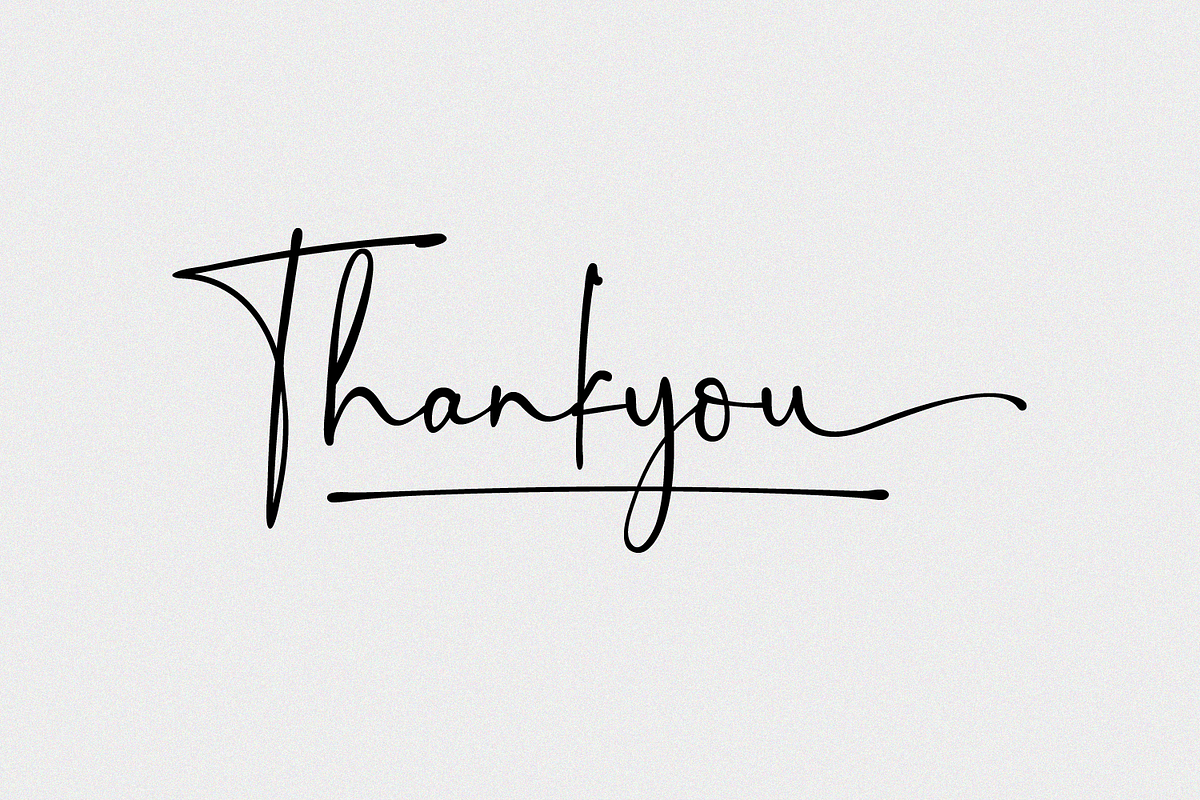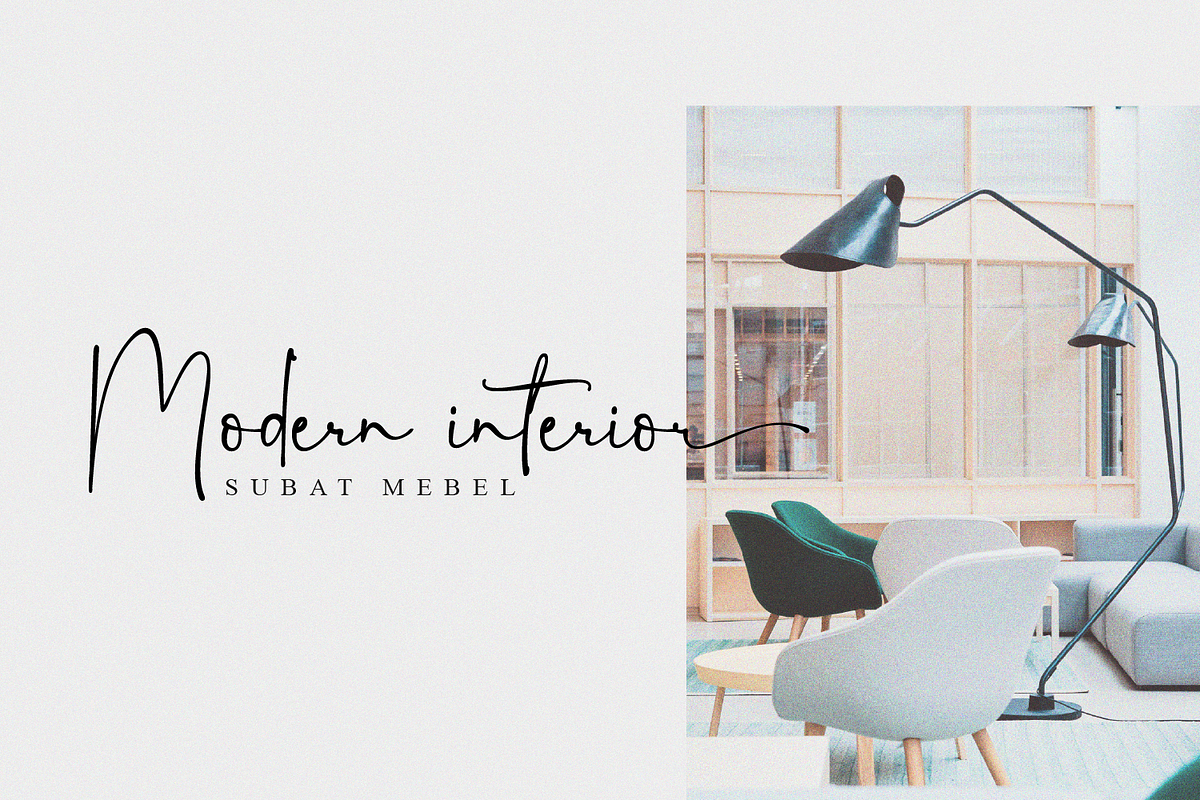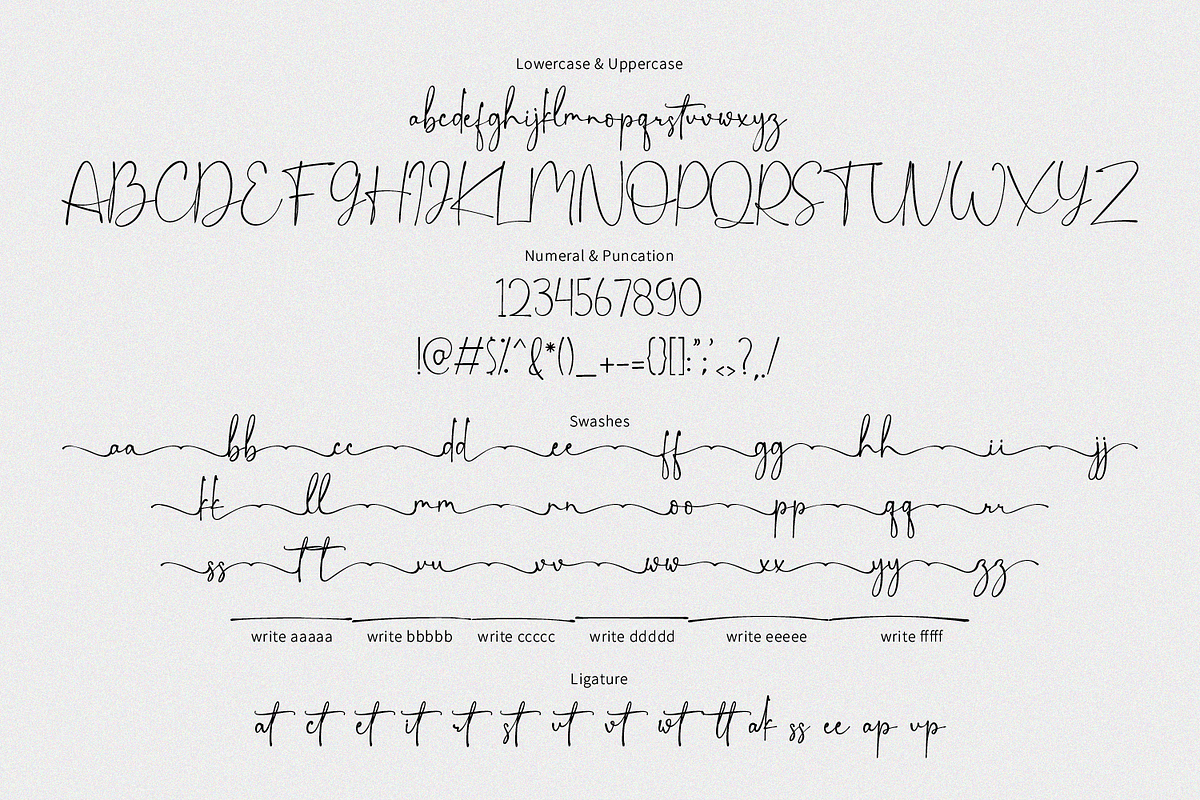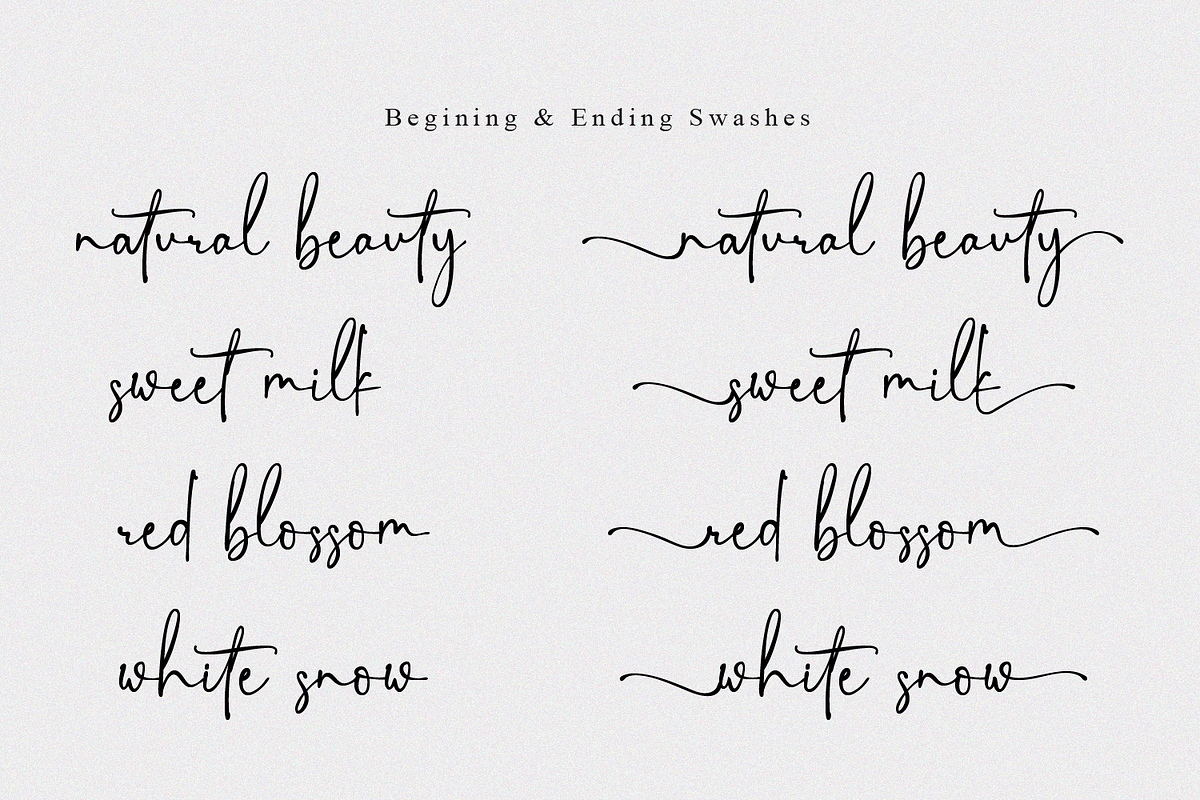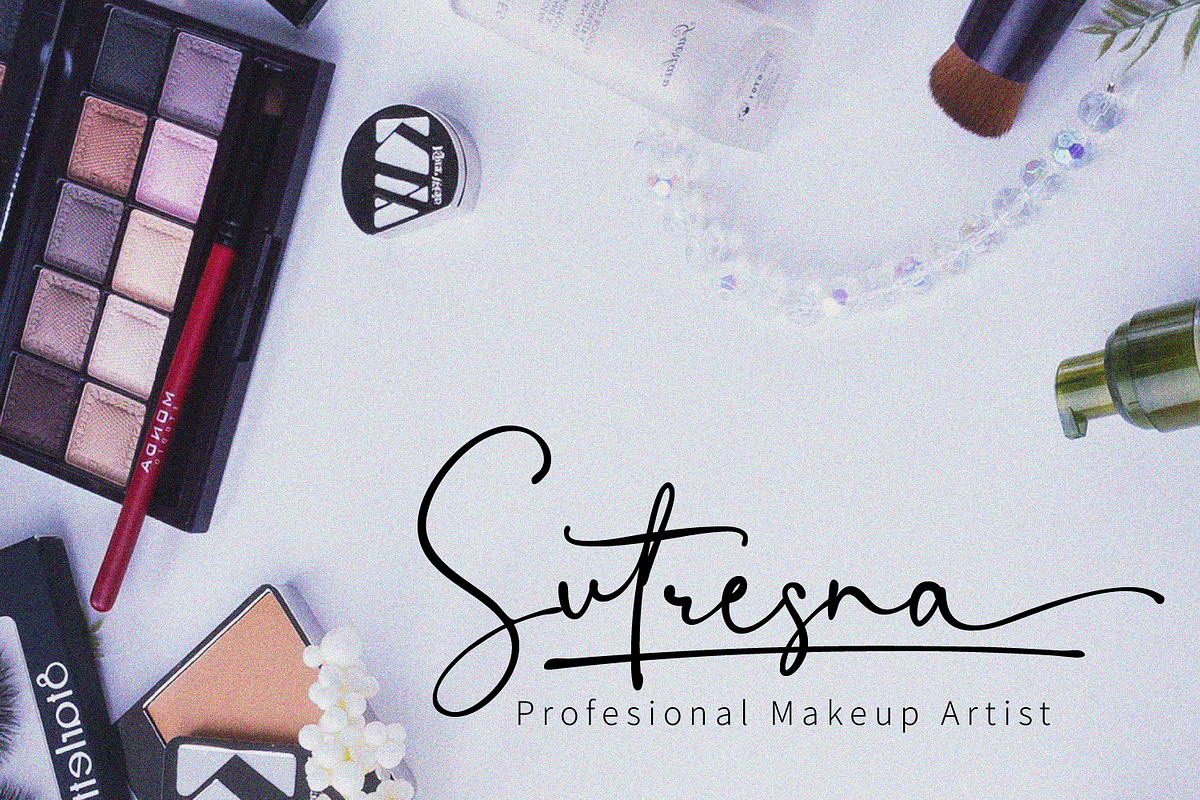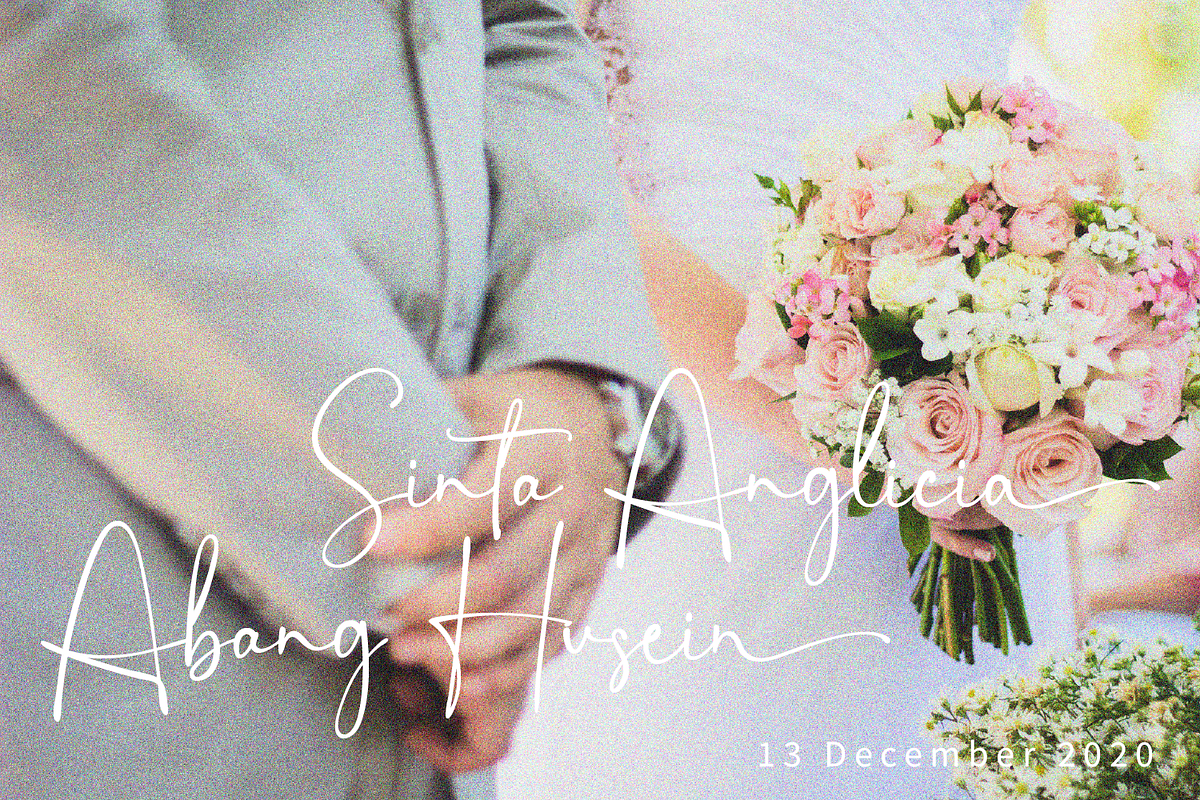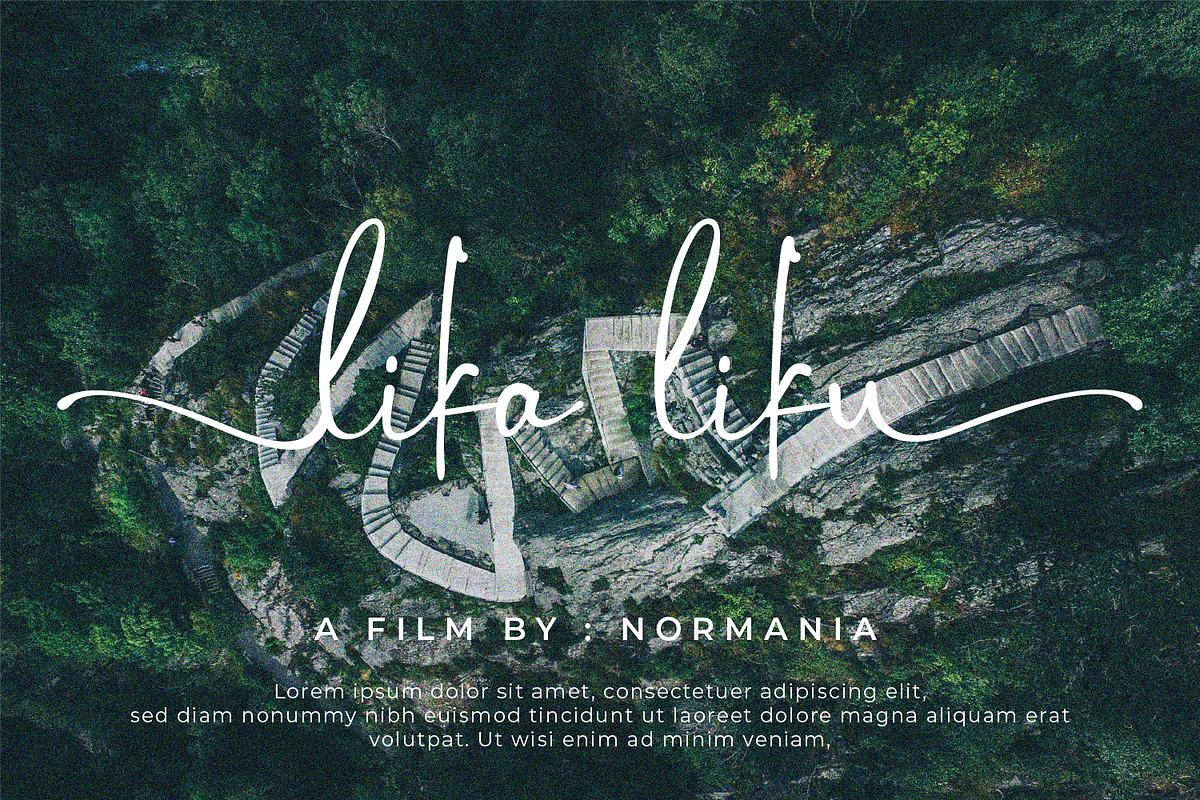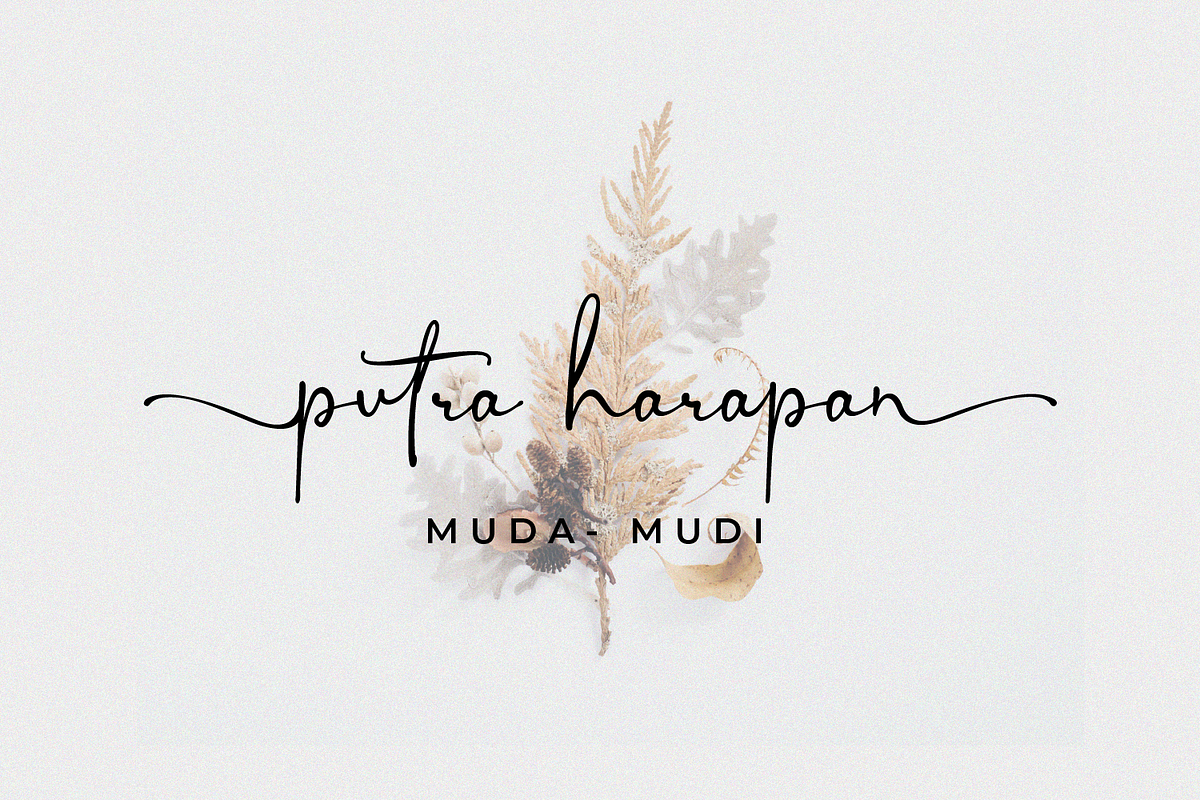
Sinestra Signature | Stylish Font
Sinestra Signature is a luxurious and delicate script font. It has a clean, thin and smooth vibe and it will be a hit for any design that you want to add it to.